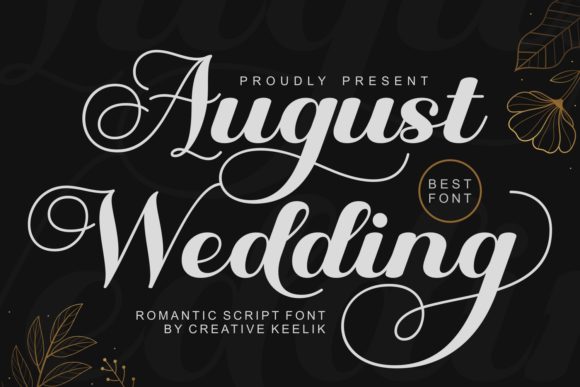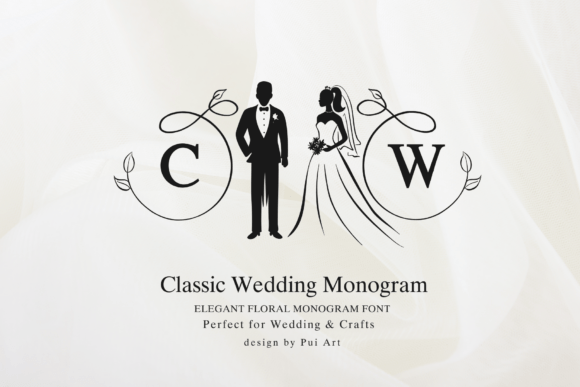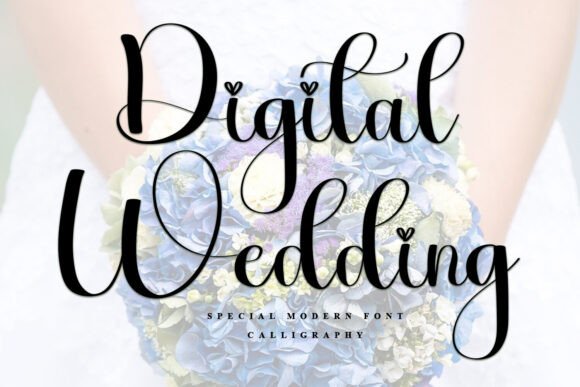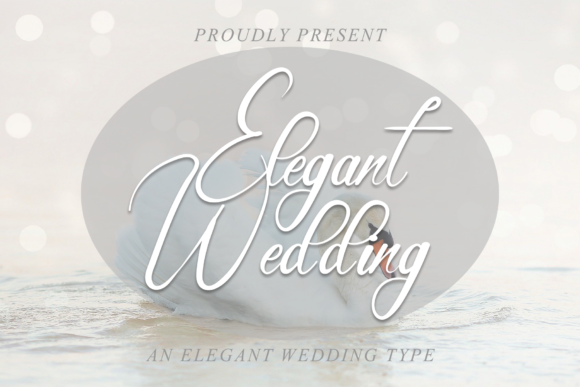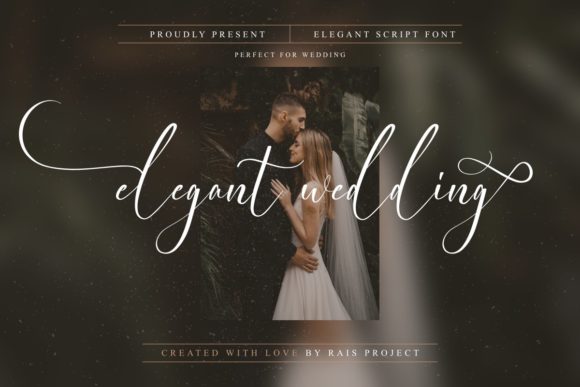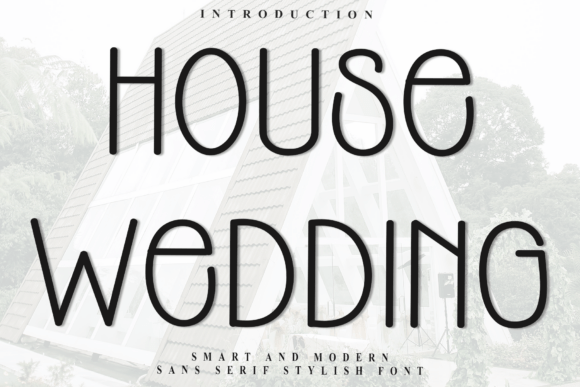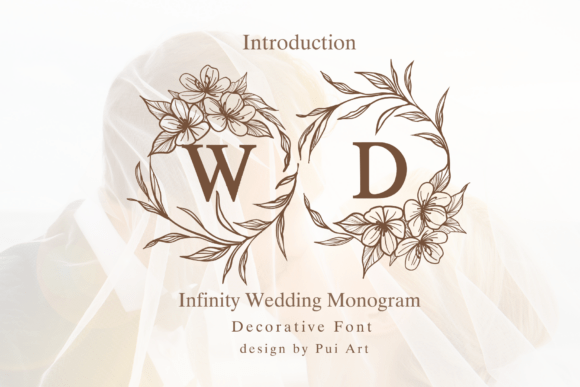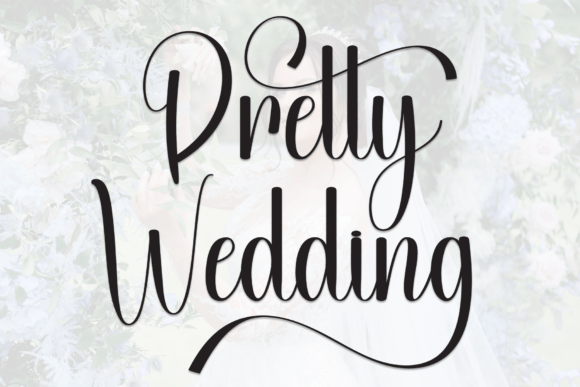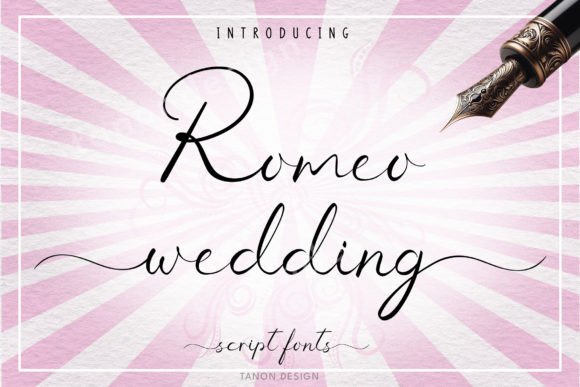
27 Best Wedding Fonts for Invitations, Signage & Stationery (2026)
Choosing the right wedding font is one of the fastest ways to set the tone for your entire celebration, whether you’re designing invitations in Canva, cutting signage on a Cricut, or building a wedding logo from scratch. Below are 27 wedding fonts worth downloading, grouped by style, with a quick pairing guide so your stationery looks intentional instead of mismatched.
How to Pair Wedding Fonts
Most well-designed wedding suites use two fonts, not one: a script for names, dates, or headlines, and a clean serif or sans serif for body copy and details. Pick one flowing script from the list below as your feature font, then pair it with a simple, highly legible font for the fine print — that contrast is what makes an invitation look professionally designed instead of cluttered.
Timeless & Elegant Scripts
These are your go-to fonts for invitations, save-the-dates, and wedding logos that need a classic, high-end feel.
1. Wedding
A stylish script with graceful strokes and fluid curves that echo hand-drawn calligraphy with a modern edge. Works well on invitations, packaging, and social graphics.
2. Wedding Enchanting
A captivating script that balances delicate elegance with a timeless, romantic feel. A strong pick for heartfelt invitation wording and vow cards.
3. Elegant Wedding
A delicate, fashionable script that’s PUA encoded, so every glyph and swash is easy to access. Great for logos and branding projects beyond just stationery.
4. August Wedding
Sweeping swashes and sophisticated flourishes make this a premier choice for luxury bridal branding and high-end event signage. Pair it with a clean serif for balance.
5. Wedding Nayla
An exquisite script with supremely graceful letterforms that convey class and sophistication. Turns names and dates into a genuine focal point.
6. Romeo Wedding
A beautiful calligraphy handwritten font that’s PUA encoded for easy access to its glyphs and ligatures. Works nicely on t-shirts, mugs, and cards too.
7. Wedding — Elegant Handwritten
A stylish, incredibly elegant handwritten font that suits invitations, thank-you cards, quotes, and logos equally well.
8. Wedding — Flowing Calligraphic
Varied baselines and smooth lines give this font a classy calligraphic influence that still feels contemporary and fresh.
9. Violyn Wedding Thivoria
A refined calligraphy typeface with a rich set of stylistic alternates and custom ligatures. Suited to high-end invitations, luxury branding, and fashion editorials.
10. Wedding — Neat & Timeless
A neat, beautiful handwritten style with a distinct, timeless character for invitations and other special-occasion designs.
11. Wedding Day
A captivating script with delicate letterforms and PUA encoding for effortless access to every swash and alternate. Made for romantic invitations and heartfelt letters.
12. Wedding Beauty
Long, luxurious flourishes and a rhythmic flow that mimics fine calligraphy. A strong choice for high-end wedding stationery and premium branding.
Sweet & Delicate Scripts
Softer, more playful scripts that suit thank-you cards, favor tags, and details throughout the day.
13. Wedding Dream
Equally charming and elegant, this PUA-encoded font looks great on invitations, thank-you cards, quotes, and business cards.
14. Pretty Wedding
A charming handwritten display font with a smudge-effect texture that adds a whimsical, personal touch to invitations and cards.
15. Digital Wedding
A simple, versatile script that works as well on wedding invitations as it does on YouTube banners and logo mockups — handy if you’re building a couple’s brand alongside the wedding.
16. Wedding Flowers
A sweet, delicate, flowing script where characters dance along the baseline for a light, luxurious feel.
17. Sweet Wedding
Blends script and handwritten styles with graceful strokes, perfect for invitations, love letters, and bridal branding.
18. Elegant Wedding — Smooth Script
A beautiful, smooth script crafted for designers who want a refreshing, elegant look without heavy ornamentation.
19. Ceremony Wedding
A modern, charming handwritten font with sophisticated character, ideal for upscale invitations and chic editorial-style stationery.
Rustic & Modern Calligraphy
Softer, handmade-feeling fonts for boho, rustic, or minimalist wedding themes.
20. Rustic Wedding — Modern Calligraphy
A modern calligraphy font versatile enough for crafts, digital design, presentations, and greeting cards.
21. Rustic Wedding — Handmade Script
A lovely modern script with a handmade look, full ligatures, swashes, and multi-language support, plus a special “AND” alternate for invitation wording.
22. House Wedding
A soft, distinctive sans serif with a versatile character, great as a clean pairing font under any of the scripts above.